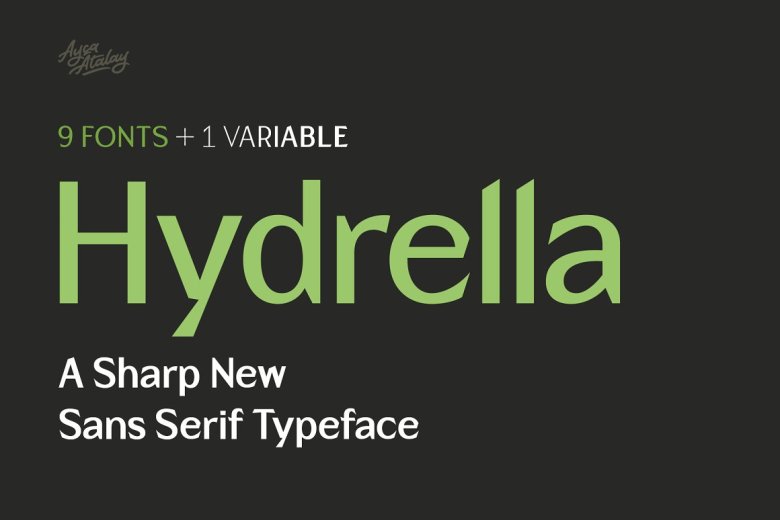
Hydrella Font
Hydrella is an ultramodern sans serif with distinct and distinctive attributes and moderately sharp contrast, available in nine weights for easy customization and smaller sizes. Hydrella makes an excellent ad hoc typeface.
Hydrella Sans Serif Font